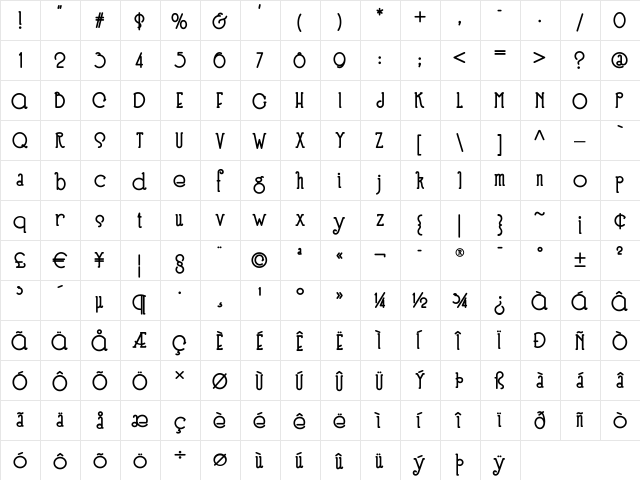
SpeedballNo3NF Bold
| Foundry | Nick's Fonts |
| Designer | Nick Curtis |
Design Context for SpeedballNo3NF Typeface
SpeedballNo3NF is a composed and adaptable typeface that performs quietly and consistently across a wide range of design contexts. Its bold stroke weight gives it real presence on the page.